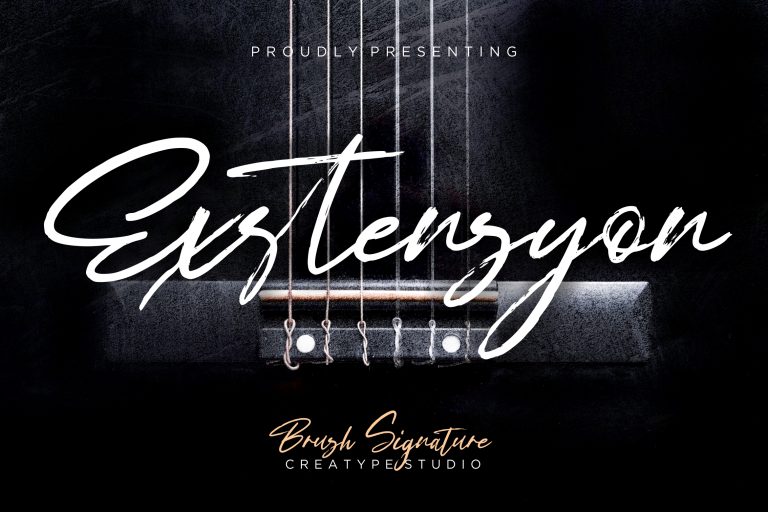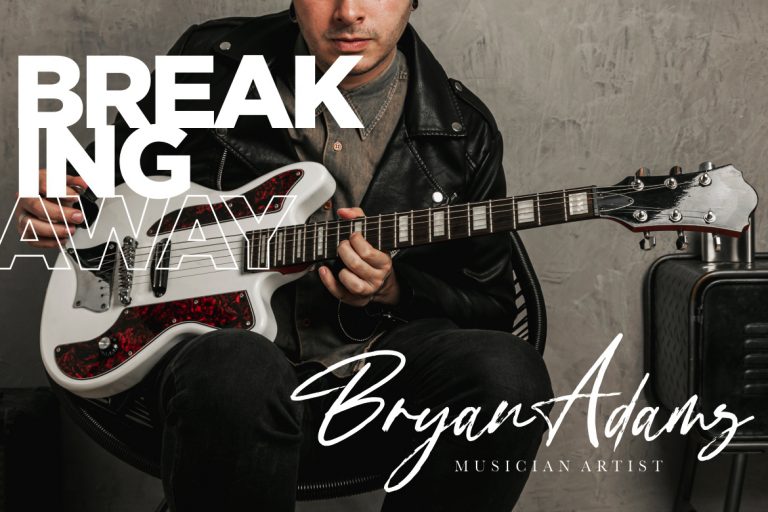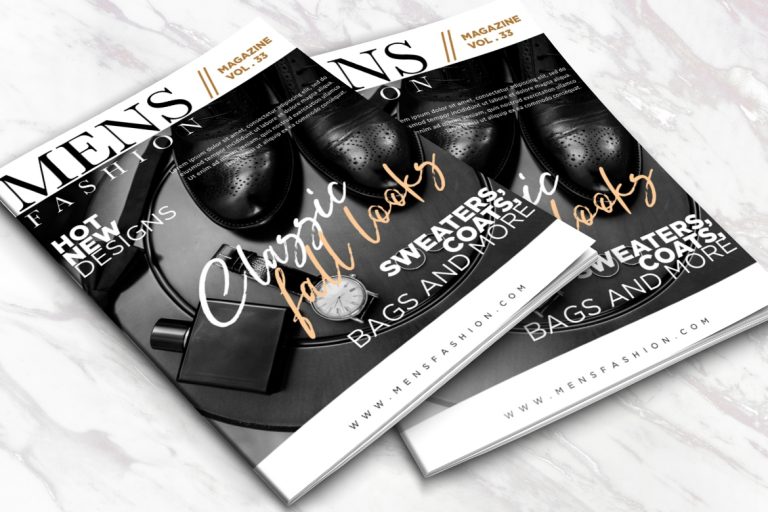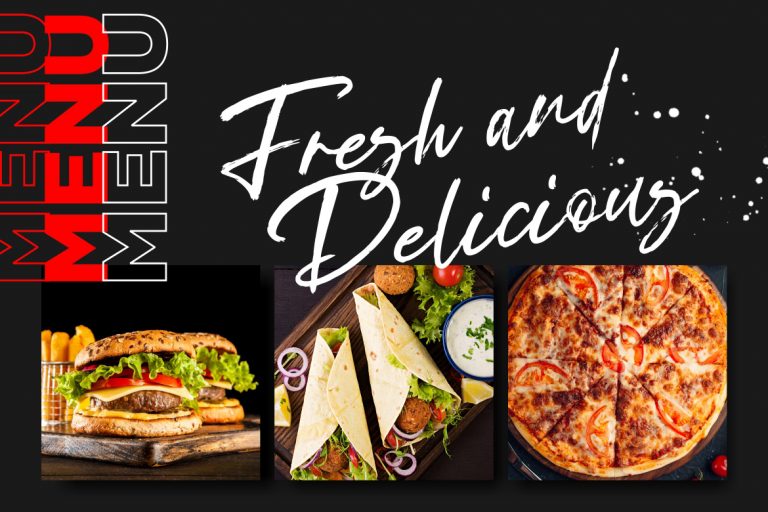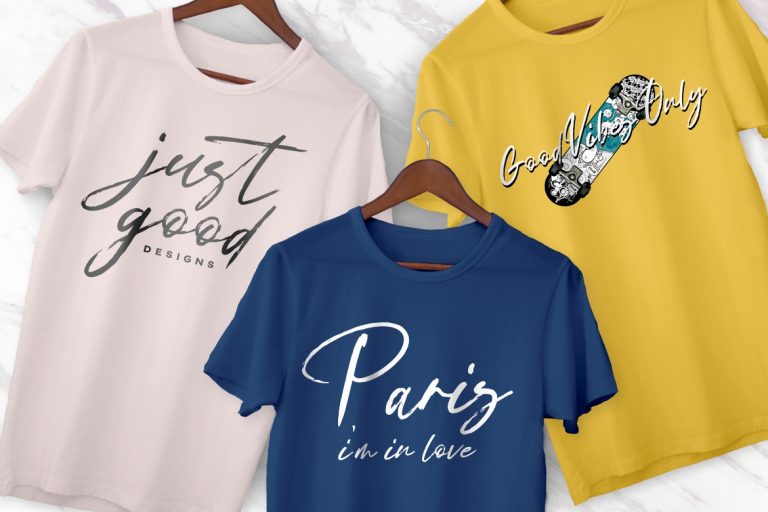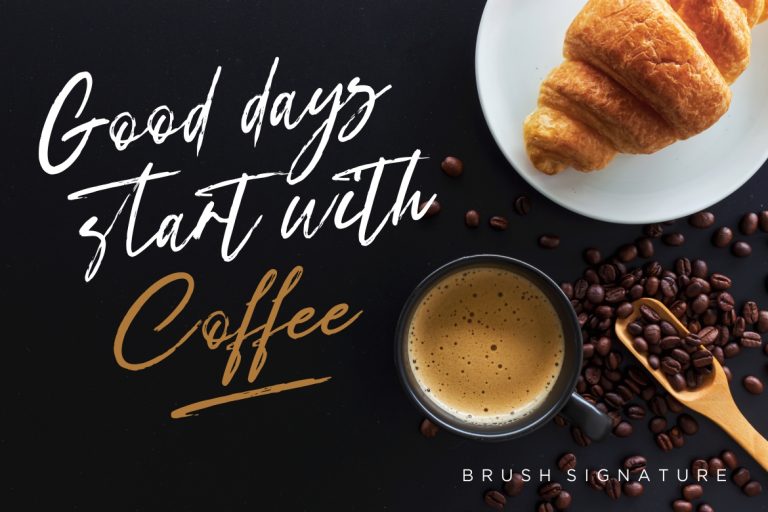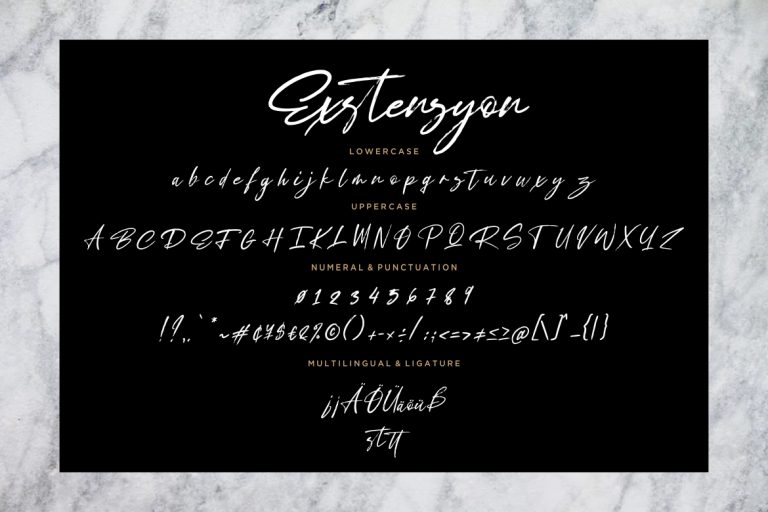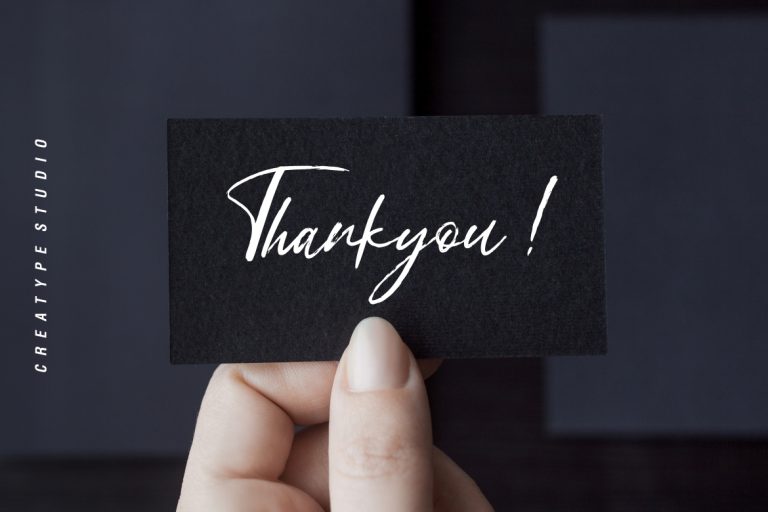
Exstensyon is a handwritten brush font with signature style that make your latest project looks awesome.
Exstensyon is perfect for branding projects, logo, wedding designs, social media posts, advertisements, product packaging, product designs, label, photography, watermark, invitation, stationery and any projects that need handwriting taste.
- Standard glyphs
- Ligature
- Fonts include multilingual support for; ä ö ü Ä Ö Ü ß ¿ ¡
Exstensyon Brush Signature